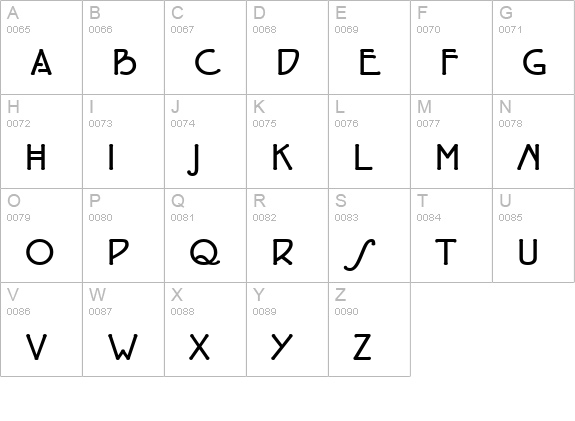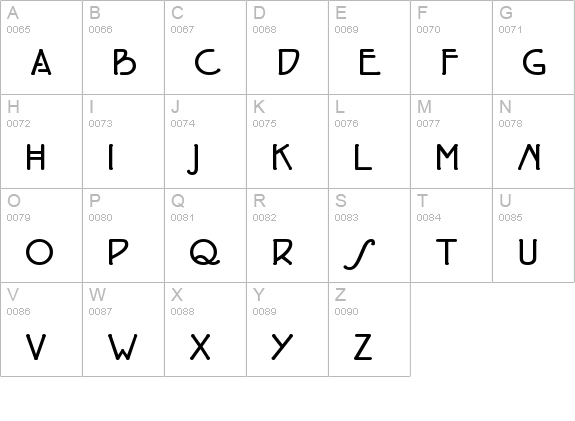
EaglefeatherFormalBold Font Details
EaglefeatherFormalBold is a stunning font that exudes elegance and sophistication. With its bold and commanding presence, this font is perfect for formal and upscale designs. The crisp and sharp lines of EaglefeatherFormalBold create a sense of strong and confident typography. Each letter is meticulously crafted to showcase a unique combination of sleekness and grace. This font is ideal for invitations, event posters, luxury branding, and any project that requires a touch of class. Its timeless appeal makes it a versatile choice for both print and digital mediums. The best part is, EaglefeatherFormalBold is available for free download at FontsMarket.com. You can easily access this font and start incorporating its elegance into your designs. Don't miss out on this incredible opportunity to elevate your projects with a font that is both visually striking and freely accessible. Download EaglefeatherFormalBold today and let your creativity soar.